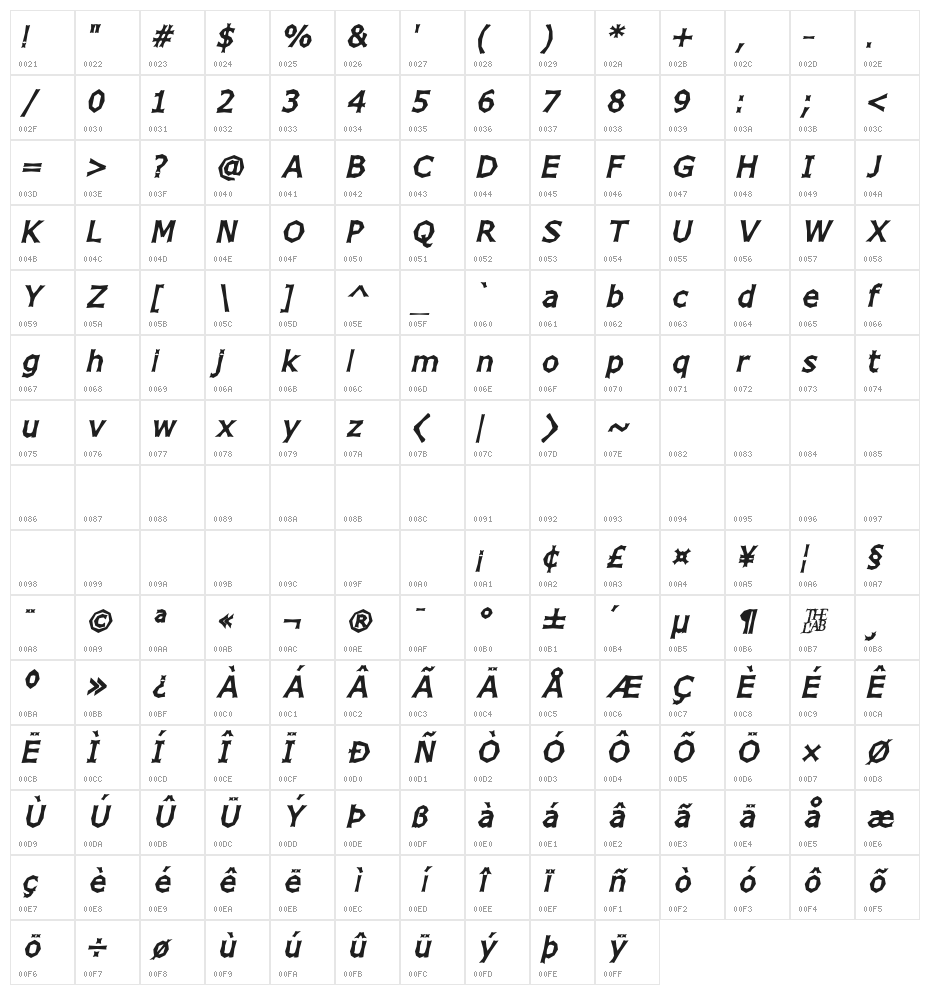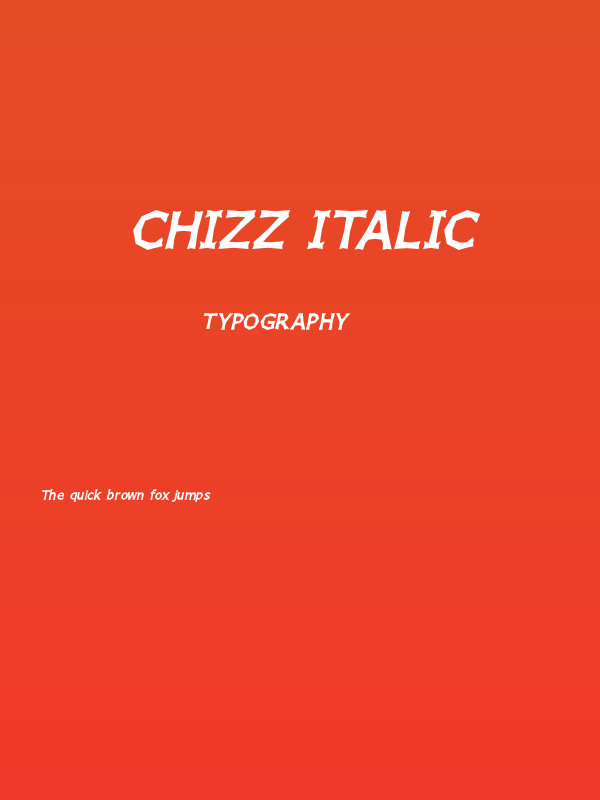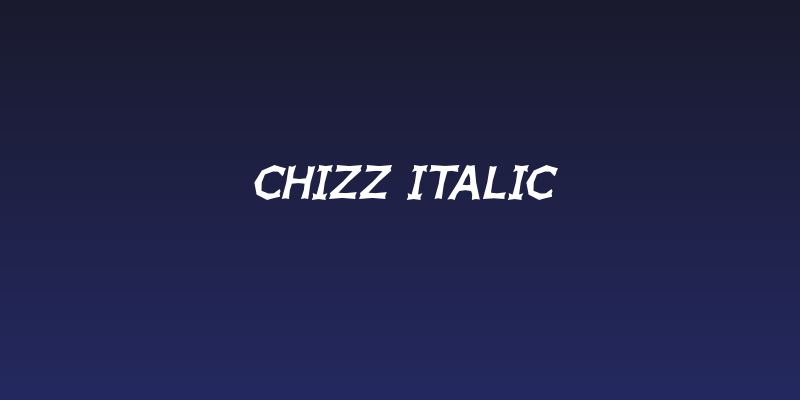
Chizz Italic Font
| Gesamtstil | Modern, Edgy |
| Anwendungsfall | Logos, Headlines, Posters |
| Vorgeschlagene Projekte | Ideal for edgy branding, poster designs, music album covers, and sports team logos. |